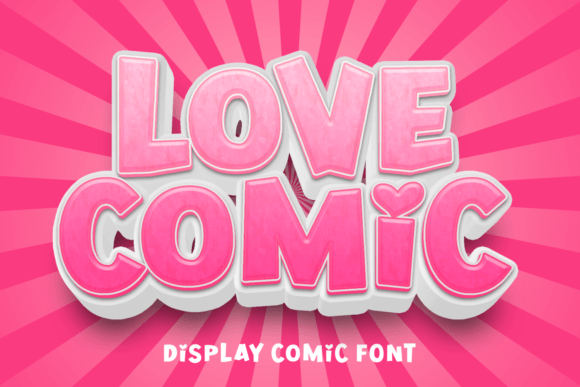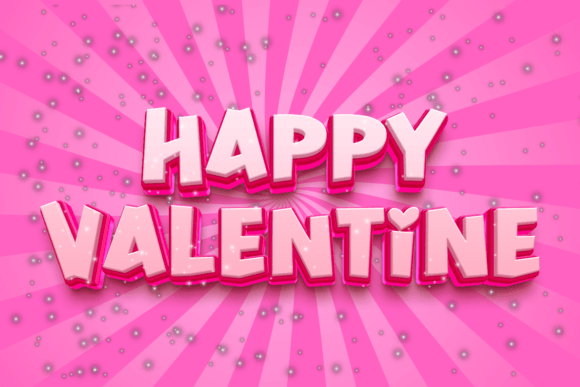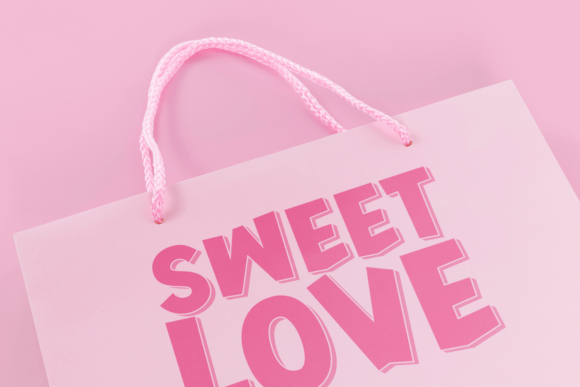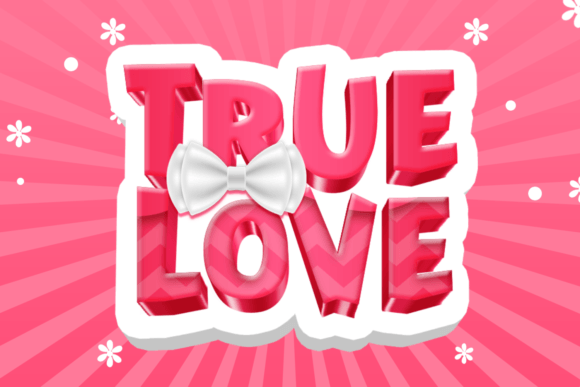
Love Comic Font
Love Comic is a playful and vibrant comic display font. With its cheerful characters and lively style, it brings a sense of fun to your designs. Ideal for comic books, posters, or any project that needs a touch of whimsy, Love Comic adds a burst of joy to your text. Express your creativity with this font that radiates love and humor, making it perfect for storytelling in a visually engaging way.